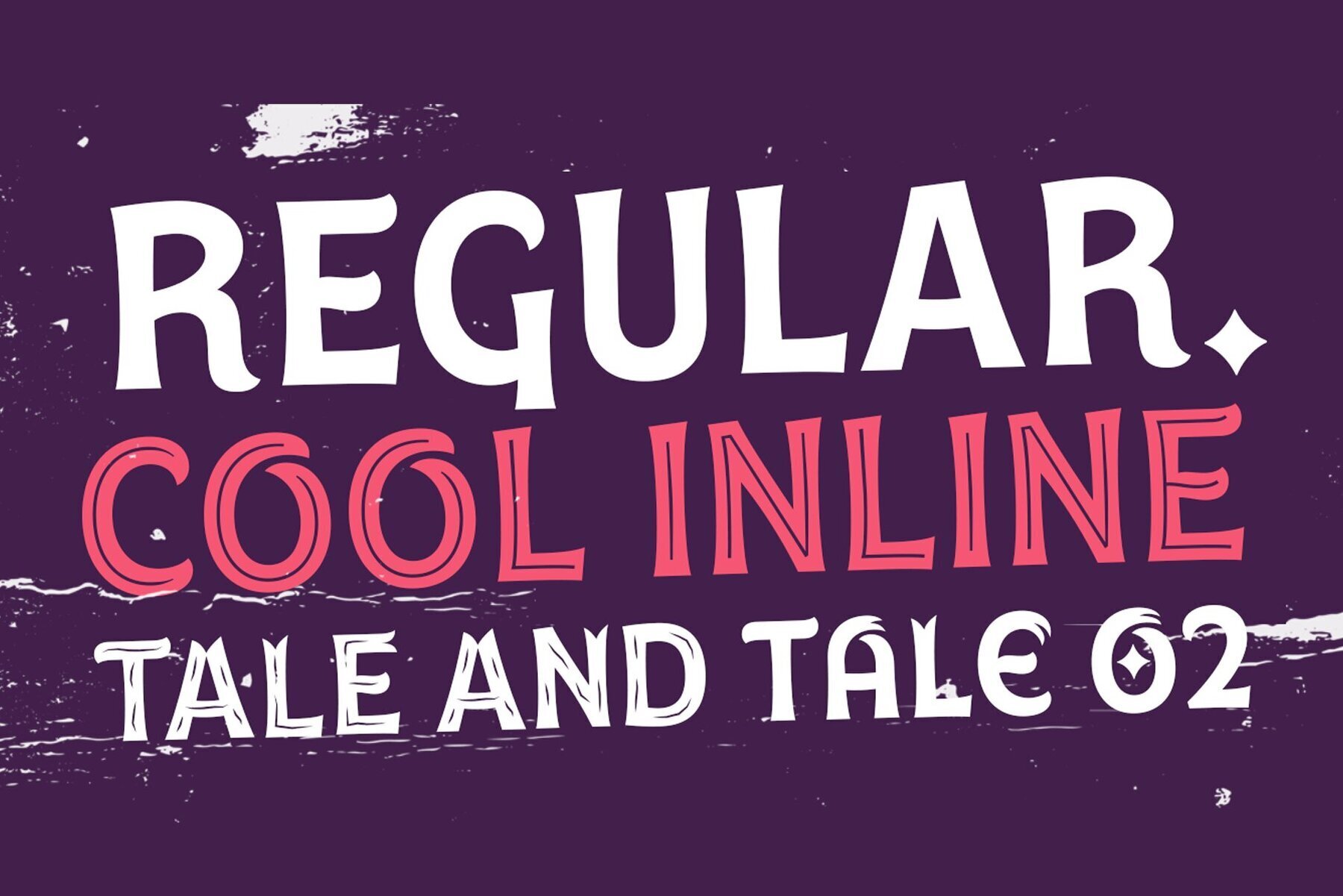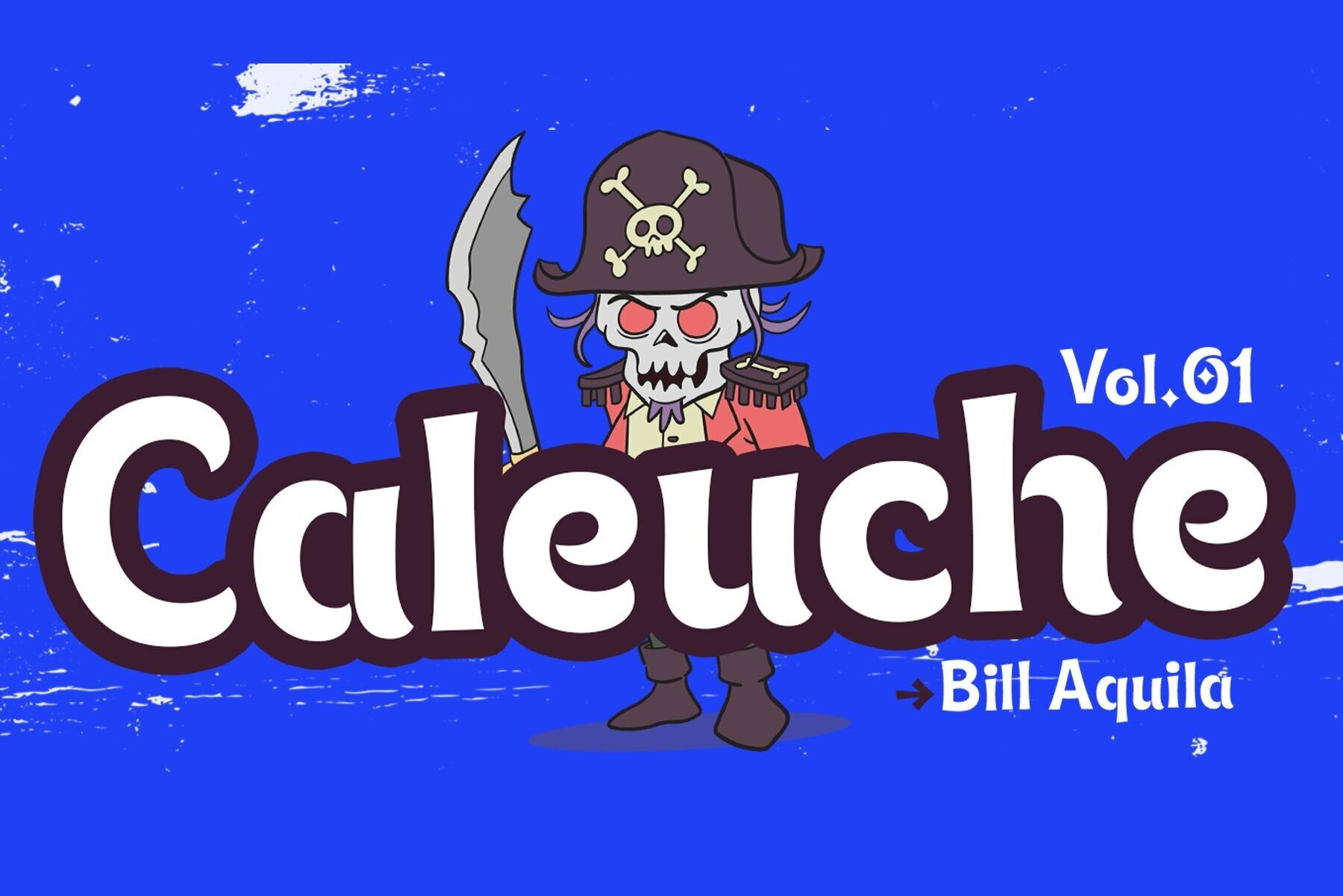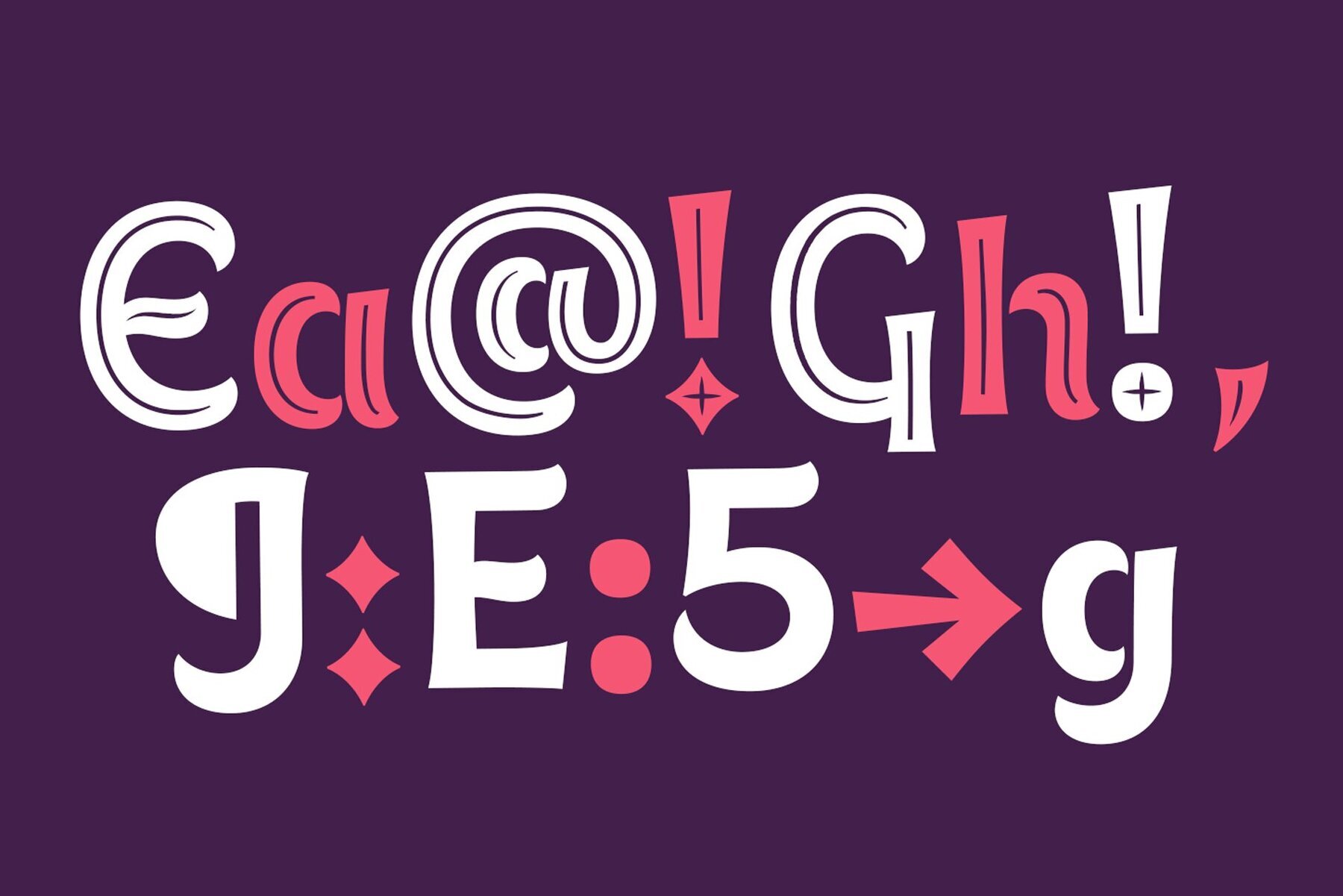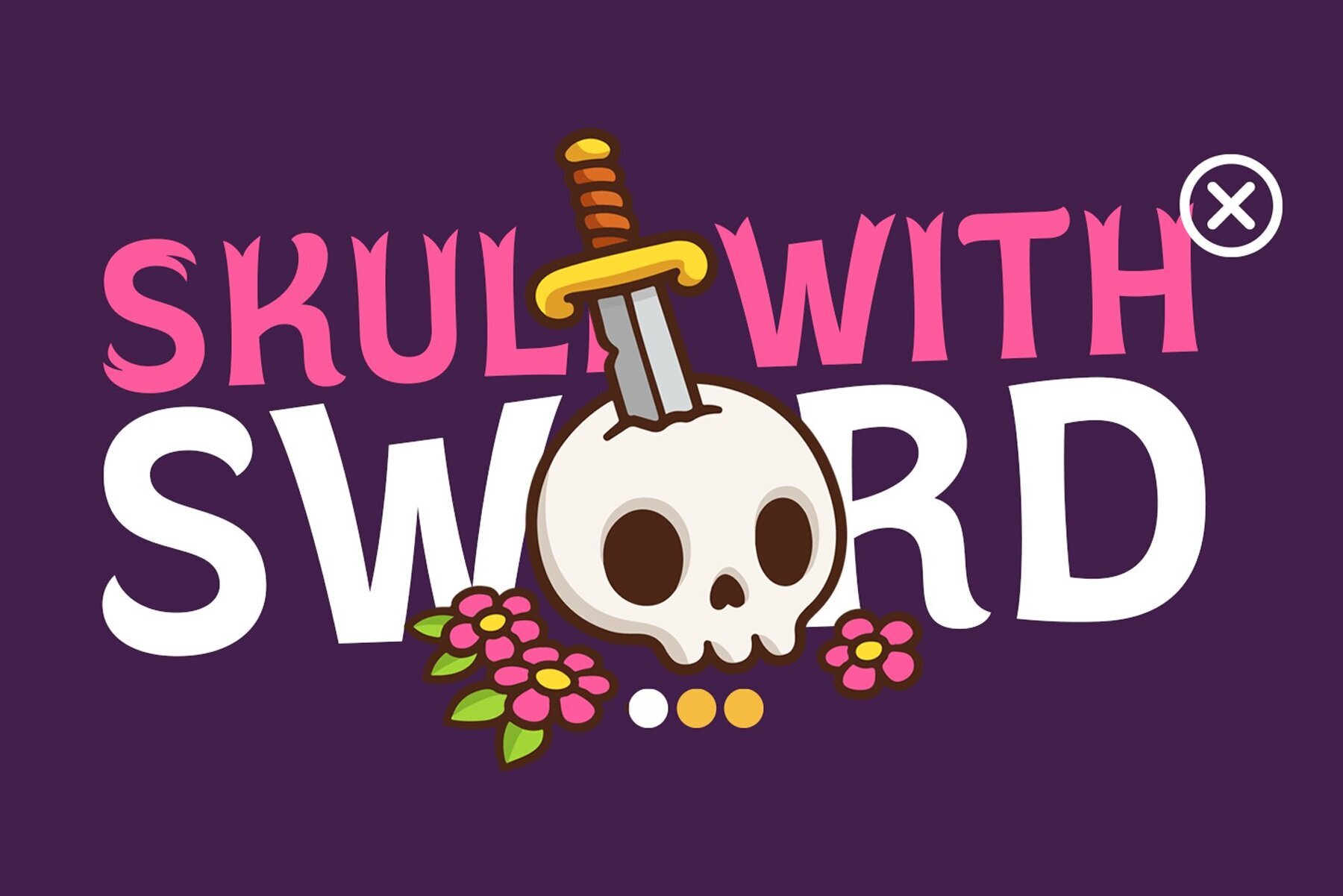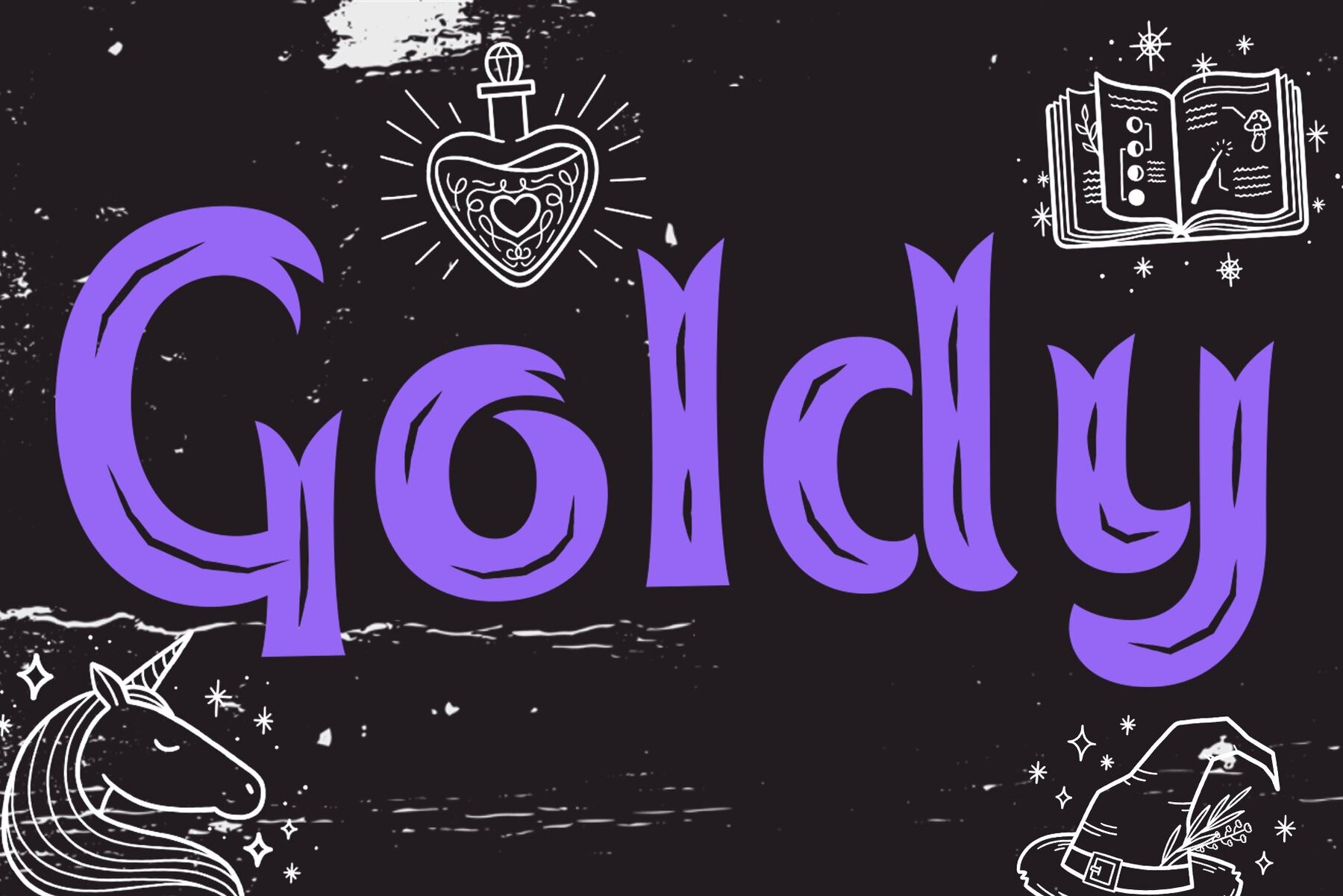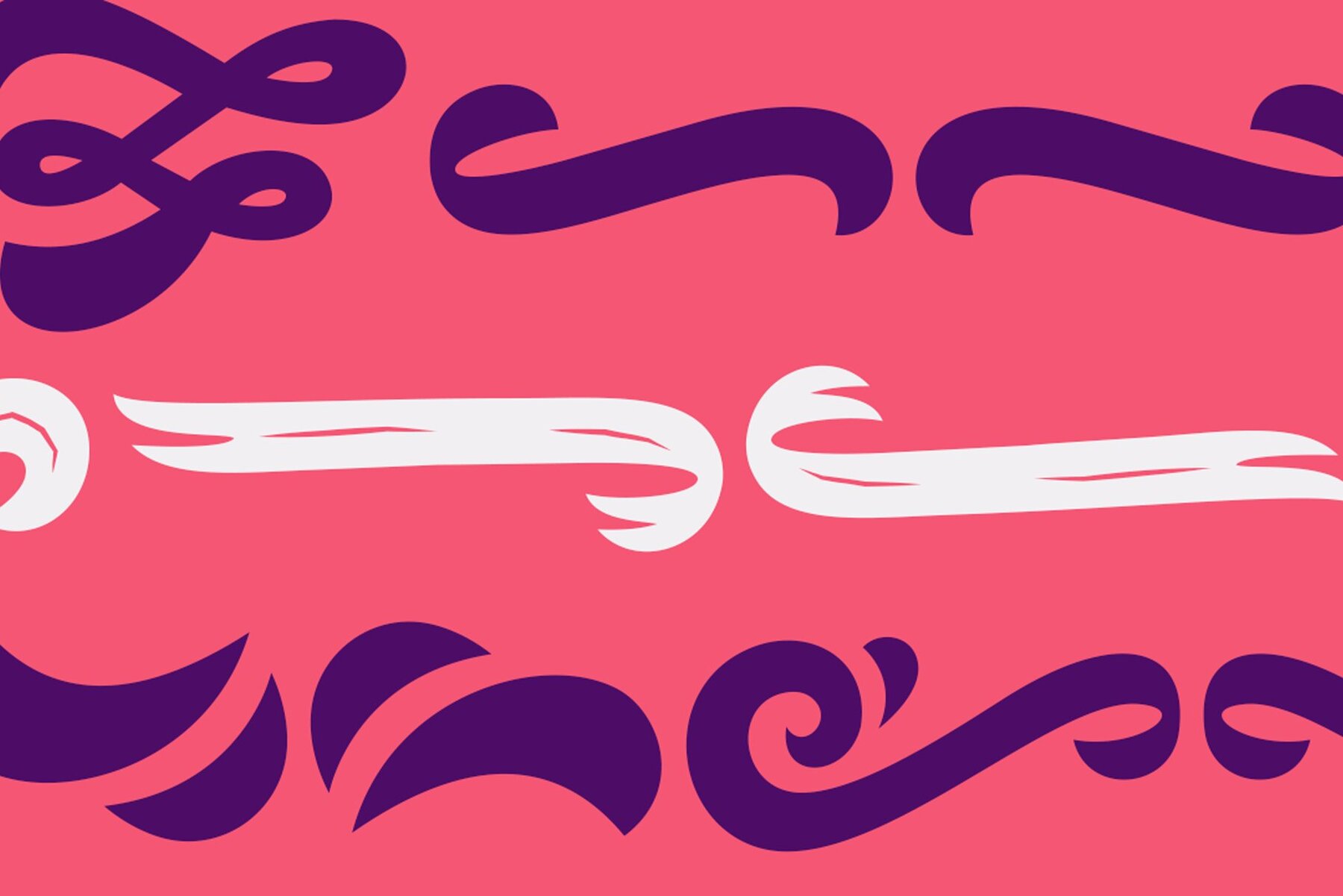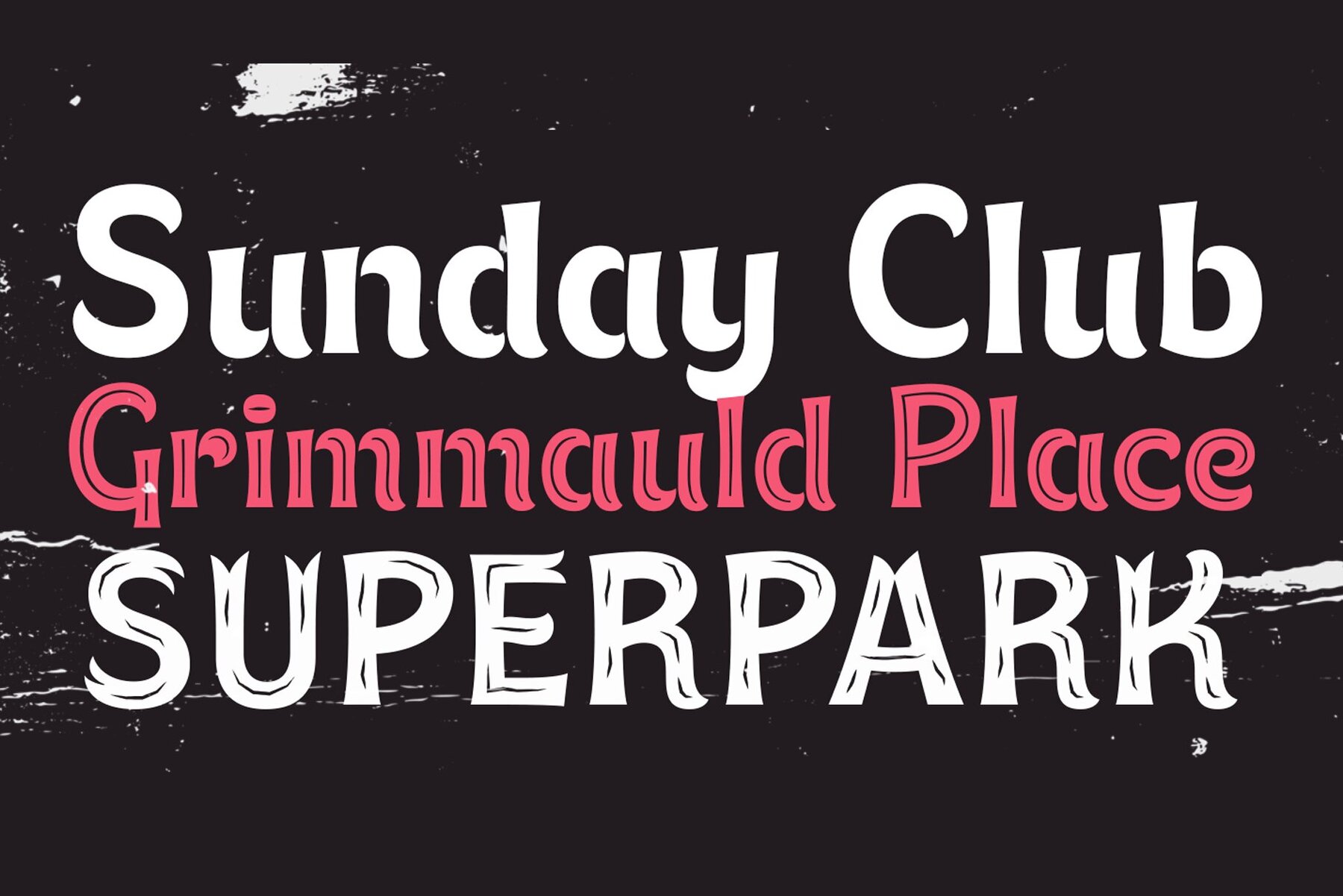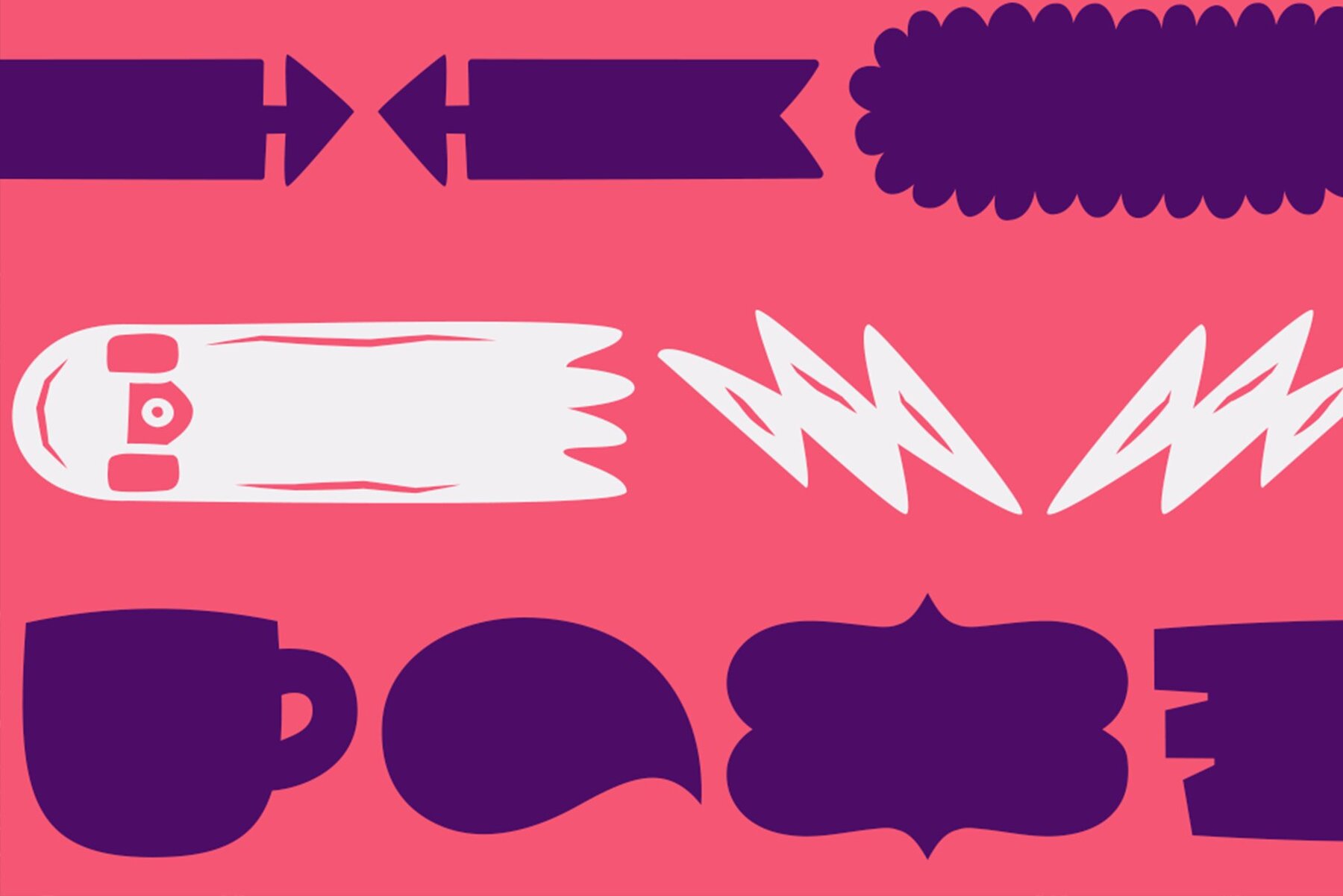
Elah Pro Font
The Elah Pro family is a versatile set of fonts perfect for any project that needs an elegant yet creative touch. With variants like regular, inline and tale-style letters with attached ornamental decoration these fun types will help you create titles in different styles no matter what your genre!